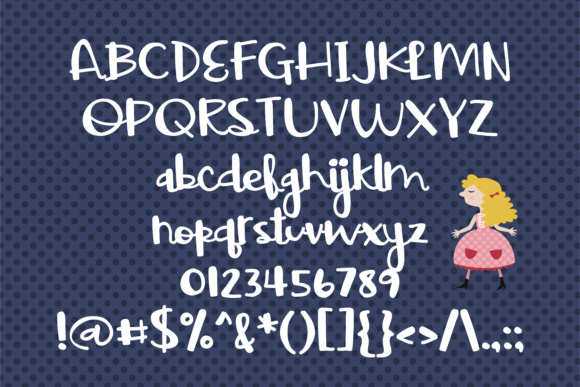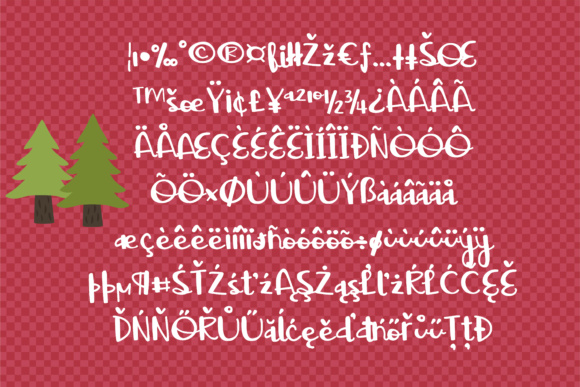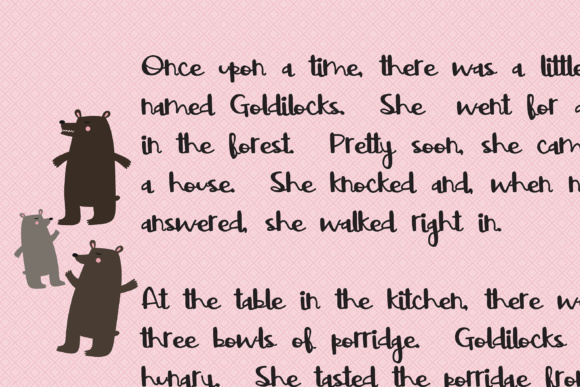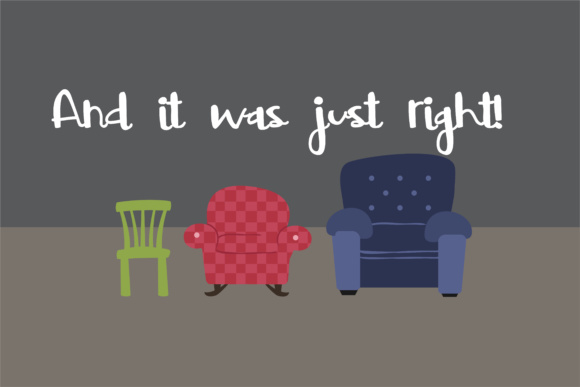
Storybrooke Script Font
About Storybrooke Script Font
Storybrooke Script is the sister font of Storybrooke, and is equally as fun! These fonts mix well with one another, and can add tons of playful charm to your projects.